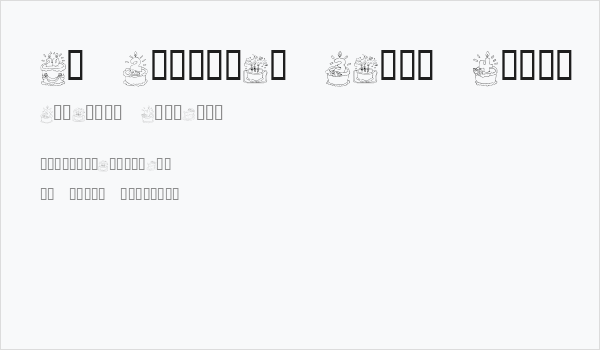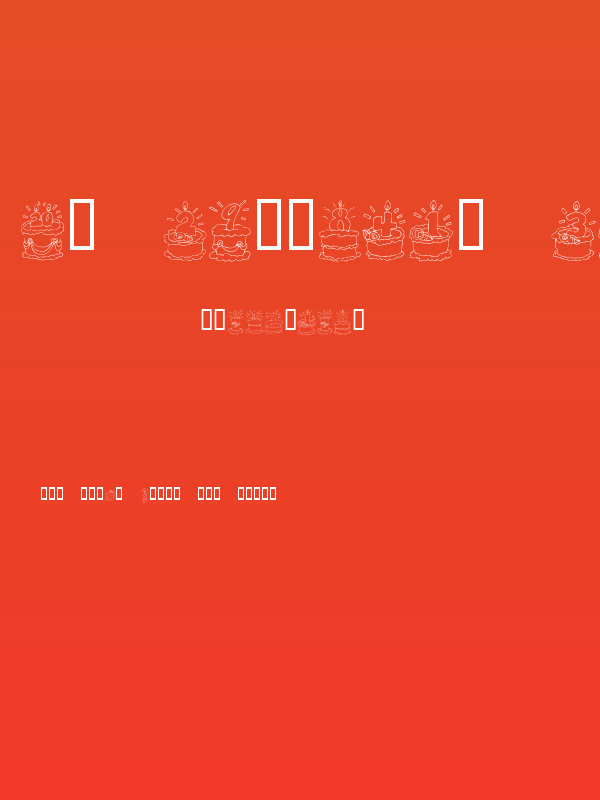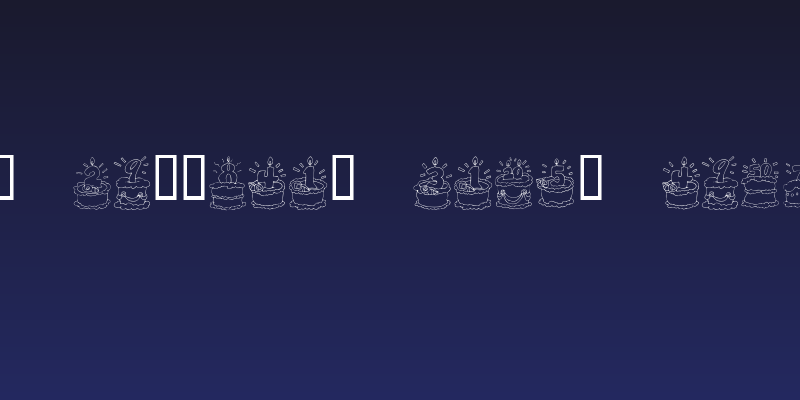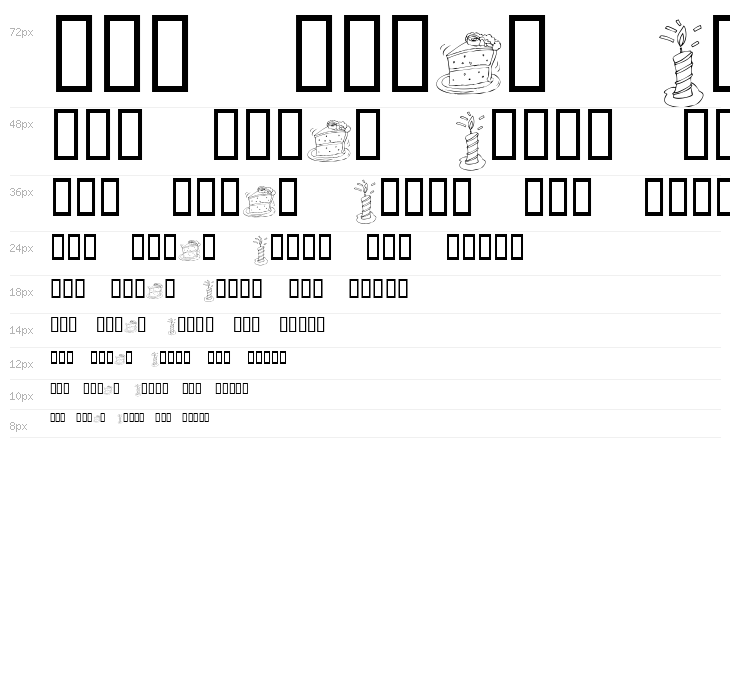
KR Birthday Cake! Dings Font
KR Birthday Cake! Dings Description
This decorative font features whimsical illustrations of birthday cakes, each adorned with numbers or candles, creating a playful and celebratory theme. The cakes are intricately drawn with various details like frosting, sprinkles, and candles, making each character unique and visually engaging. The font is designed to evoke a sense of fun and festivity, perfect for birthday-themed projects. The characters are not traditional letters or numbers but rather artistic representations, adding a creative flair to any design. The style is consistent throughout, with each cake maintaining a similar size and level of detail, ensuring a cohesive look.
| Use Case | Logos, Headlines |
| Proposed Projects | Ideal for birthday invitations, party decorations, greeting cards, and festive banners. |